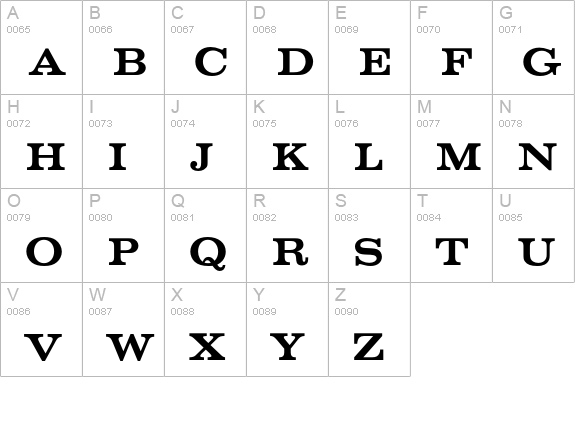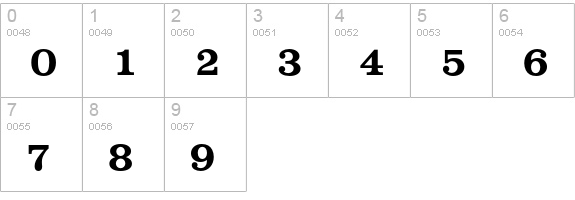
VoltaEF-Medium Font Details
VoltaEF-Medium is a balanced, medium-weight variant in the VoltaEF typeface family \xE2\x80\x94 well suited to sub-headlines, navigation, and balanced editorial work.
Introducing VoltaEF-Medium, a striking and versatile font that effortlessly combines elegance with modernity. This incredible typeface is perfect for various design projects, ranging from branding and advertising to editorial and web design. VoltaEF-Medium boasts a balanced and refined letterform, making it visually appealing and highly legible in both small and large sizes. Its clean lines and subtle curves create a harmonious flow, capturing attention with its understated charm. With its medium weight, this font strikes the perfect balance between boldness and subtlety, allowing it to stand out without overpowering the overall design. Whether you're aiming for a sophisticated and polished look or a trendy and contemporary feel, VoltaEF-Medium adapts effortlessly to suit diverse design needs. One of the remarkable aspects of VoltaEF-Medium is that it is freely available to download at FontsMarket.com. This means that designers and enthusiasts alike can access this exceptional font without any restrictions, making it a valuable addition to any font collection. Unleash your creativity and elevate your designs with VoltaEF-Medium. Its versatility, legibility, and timeless appeal make it an ideal choice for a wide range of projects, adding a touch of elegance and sophistication. Download this extraordinary font today and experience the seamless fusion of style and functionality.